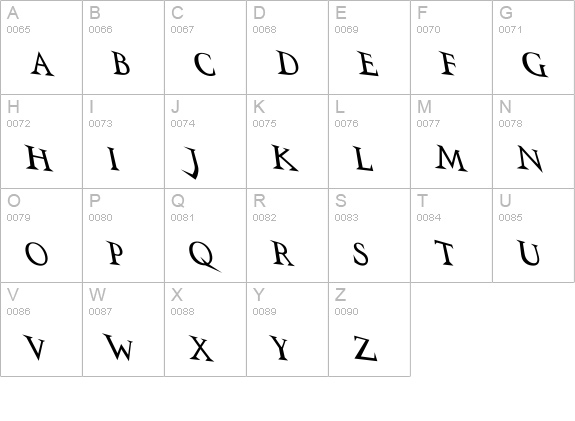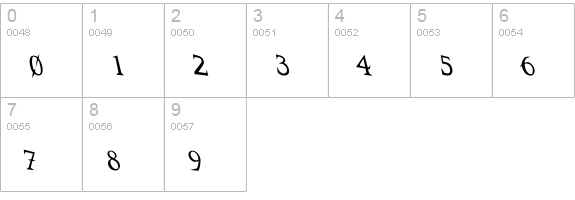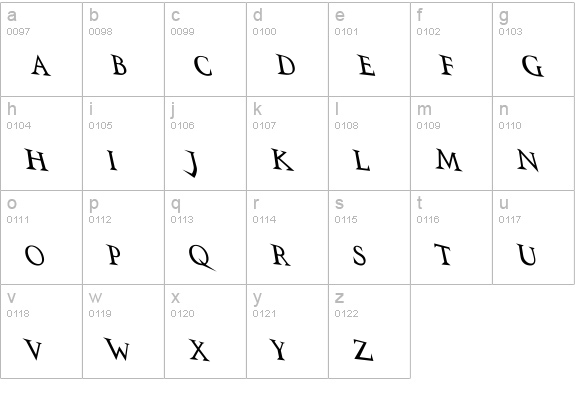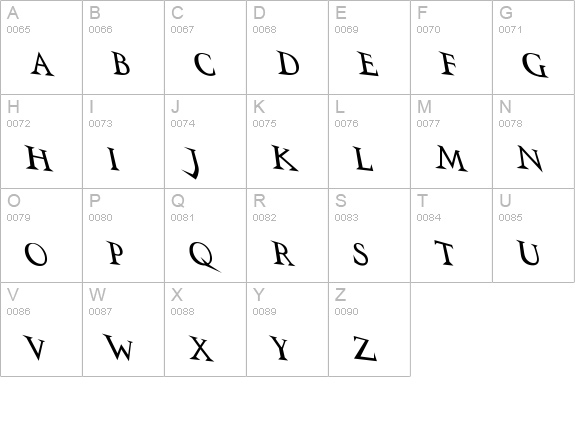
VTCSwitchbladeRomanceDrunk Font Details
VTCSwitchbladeRomanceDrunk font is a unique and eye-catching typeface that is sure to make a statement. With its bold and edgy design, this font exudes a sense of rebelliousness and individuality. Its sharp and jagged edges give it a distinct and edgy look, perfect for projects that require a touch of attitude. This font is freely available to download at FontsMarket.com, allowing you to unleash your creativity without any limitations. Whether you are designing a poster, creating a logo, or working on a personal project, VTCSwitchbladeRomanceDrunk font will add a touch of boldness and character to your work. The versatility of this font is another reason why it stands out. It can be used for both headlines and body text, making it suitable for a wide range of design applications. Its unique design ensures that your message will be noticed and remembered. The VTCSwitchbladeRomanceDrunk font is not only visually striking but also highly legible. Its well-defined characters make it easy to read, ensuring that your message is communicated effectively. It is also available in a variety of weights and styles, allowing you to customize and adapt it to suit your specific design needs. So, if you're looking for a font that combines boldness, edginess, and legibility, look no further than VTCSwitchbladeRomanceDrunk font. Download it for free at FontsMarket.com and let your creativity run wild.